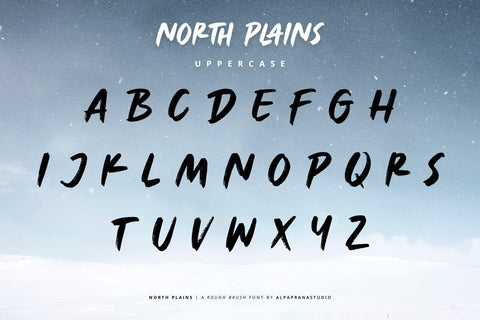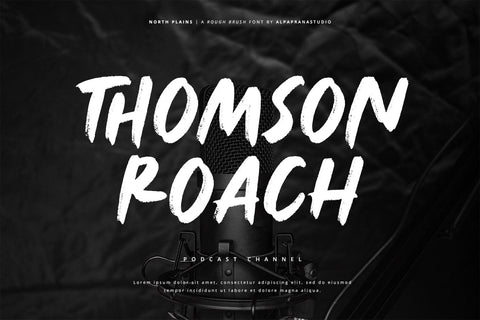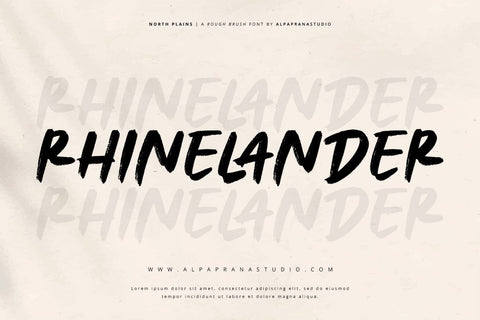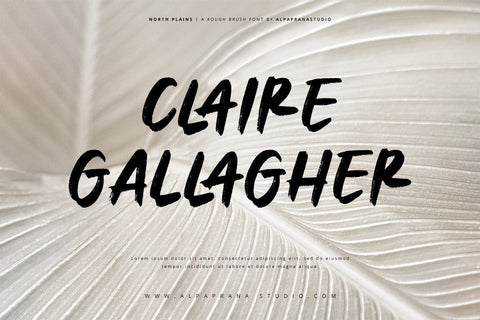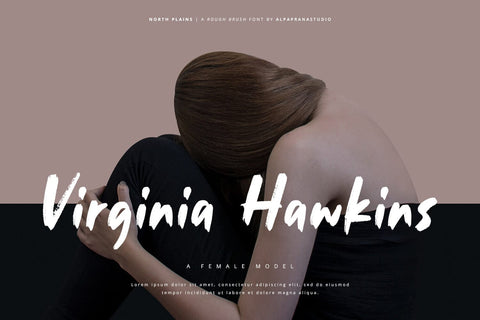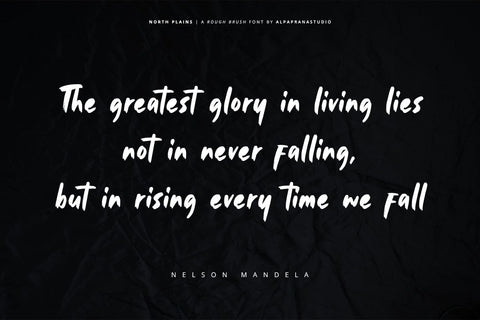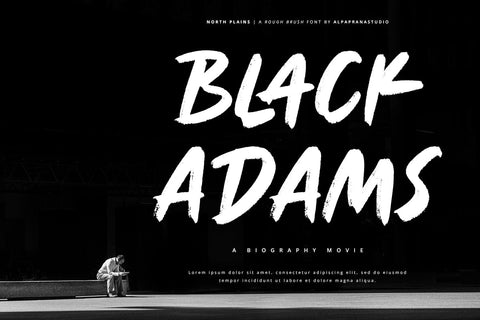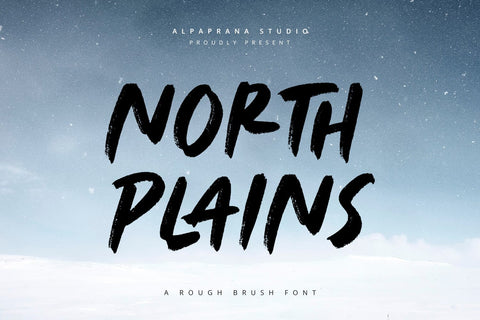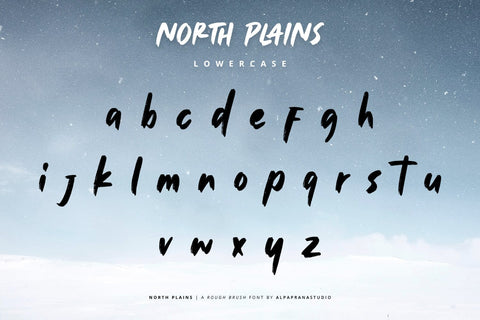
North Plains - Rough Brush Font
North Plains is a rough brush font with natural and modern feels. It will be perfectly used for Branding, Logo Design, Lettering, Logotype, Clothing, Poster, magazine, packaging, posters, shopping bags, t-shirts, book covers, photography, special events and other design project.